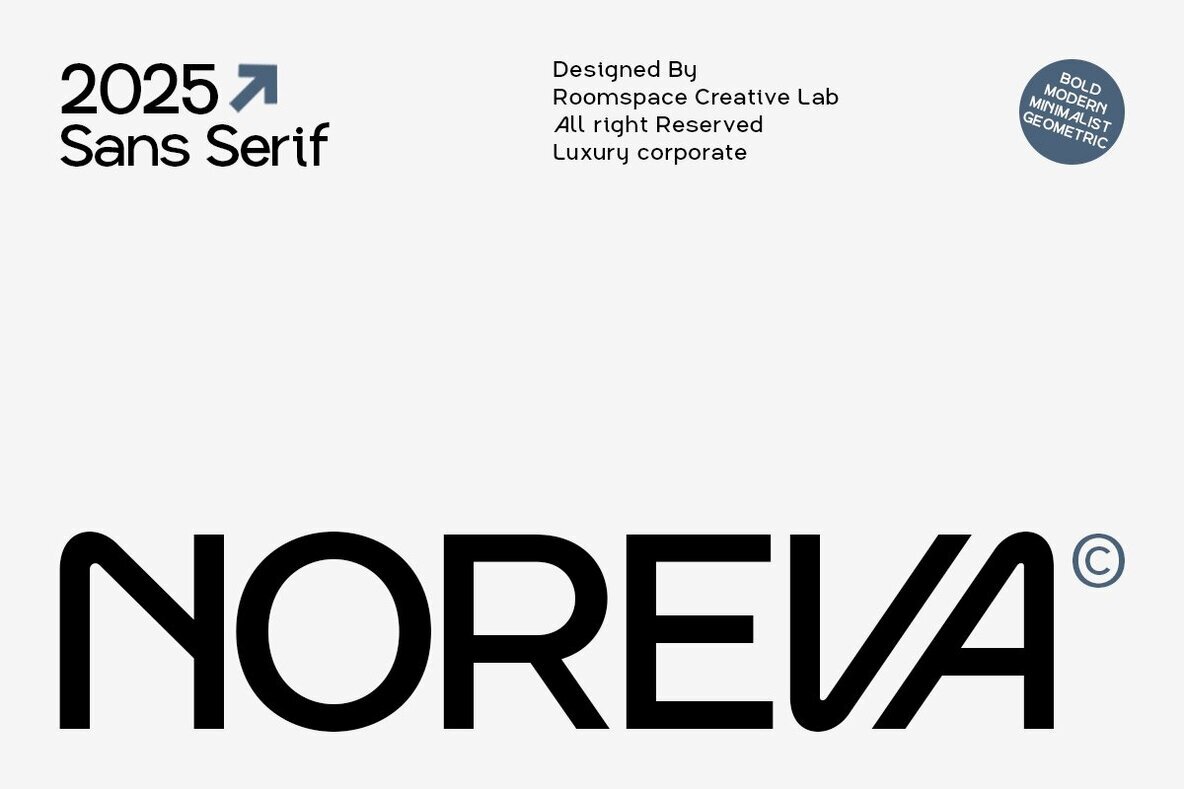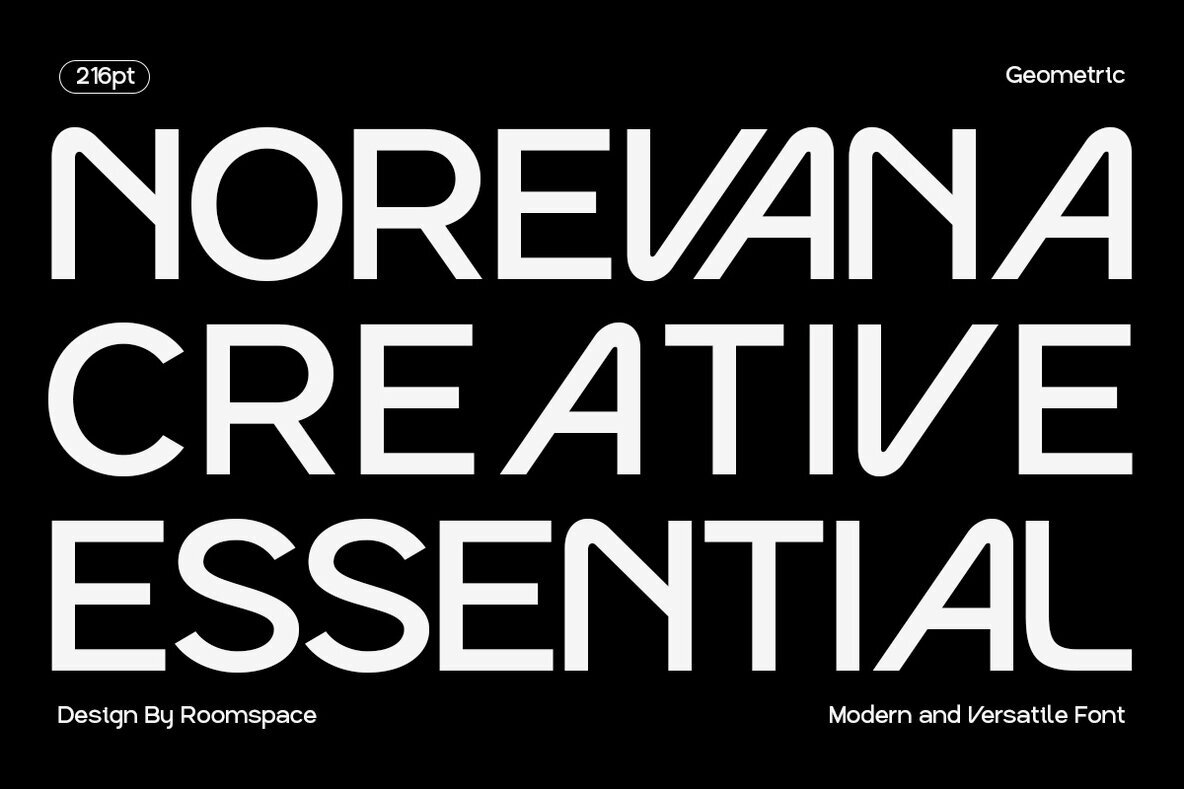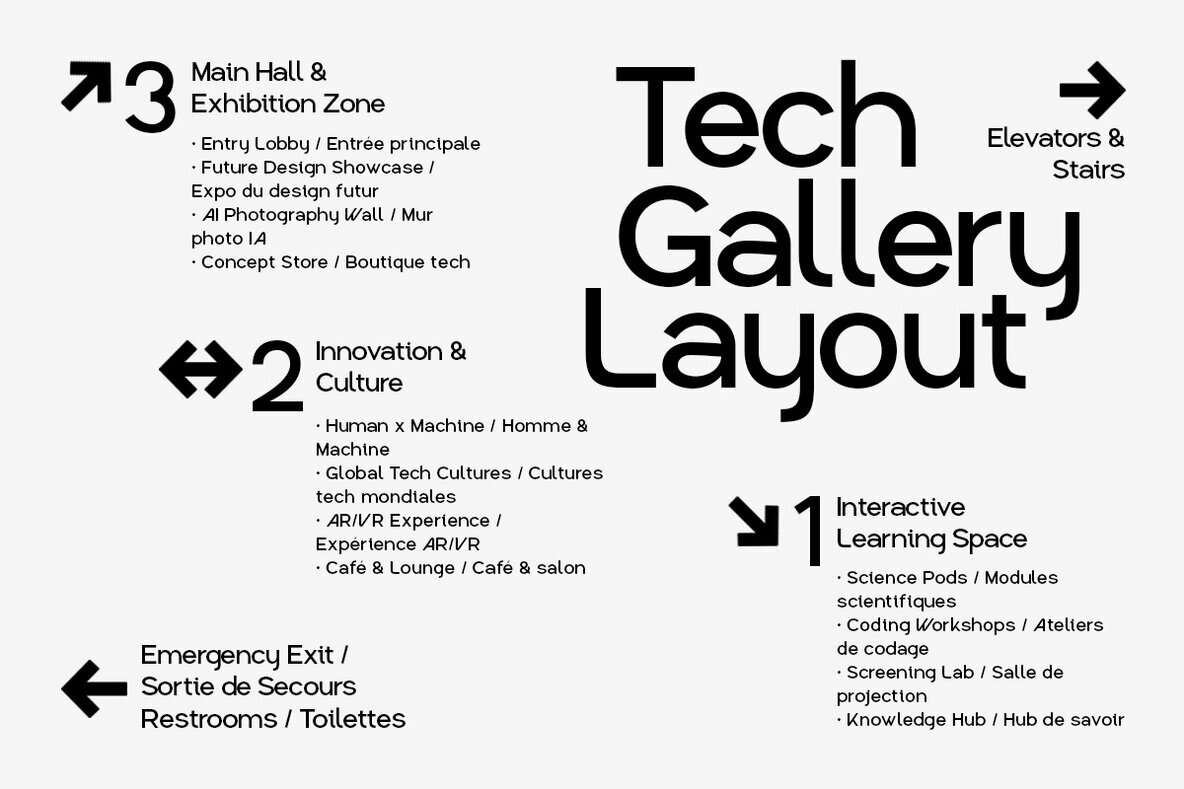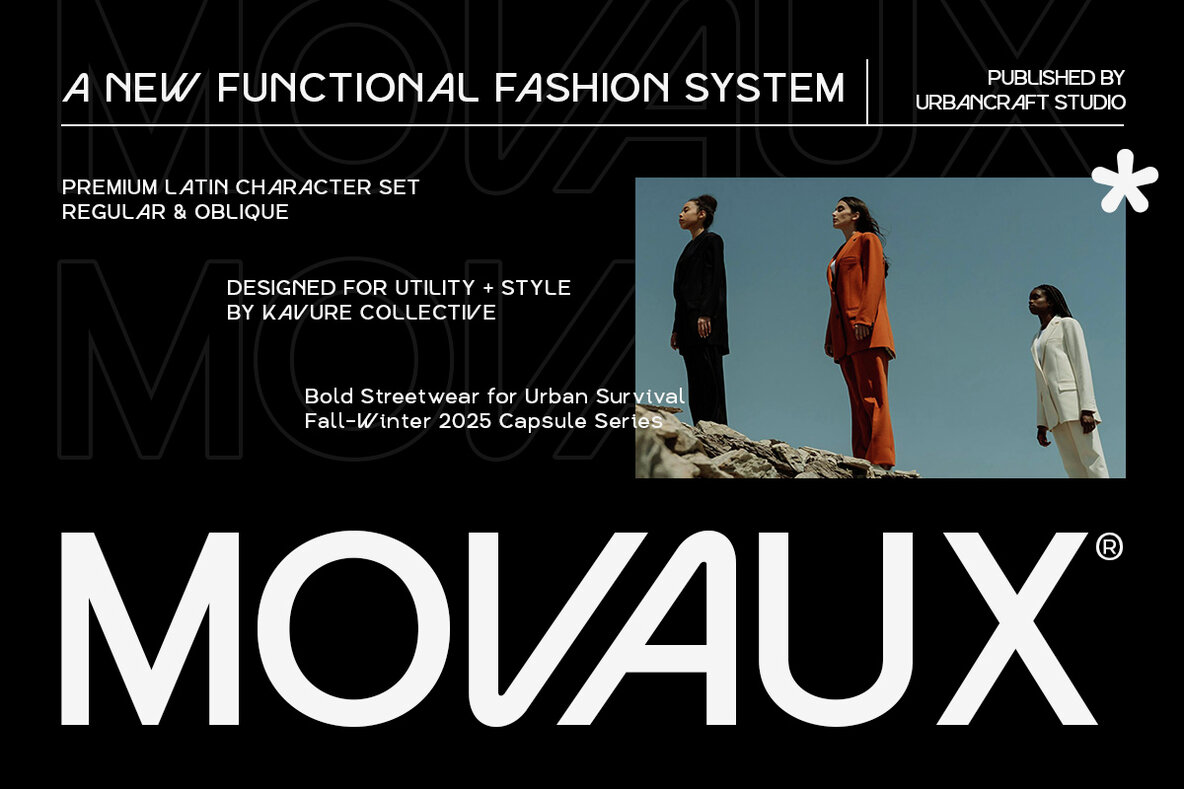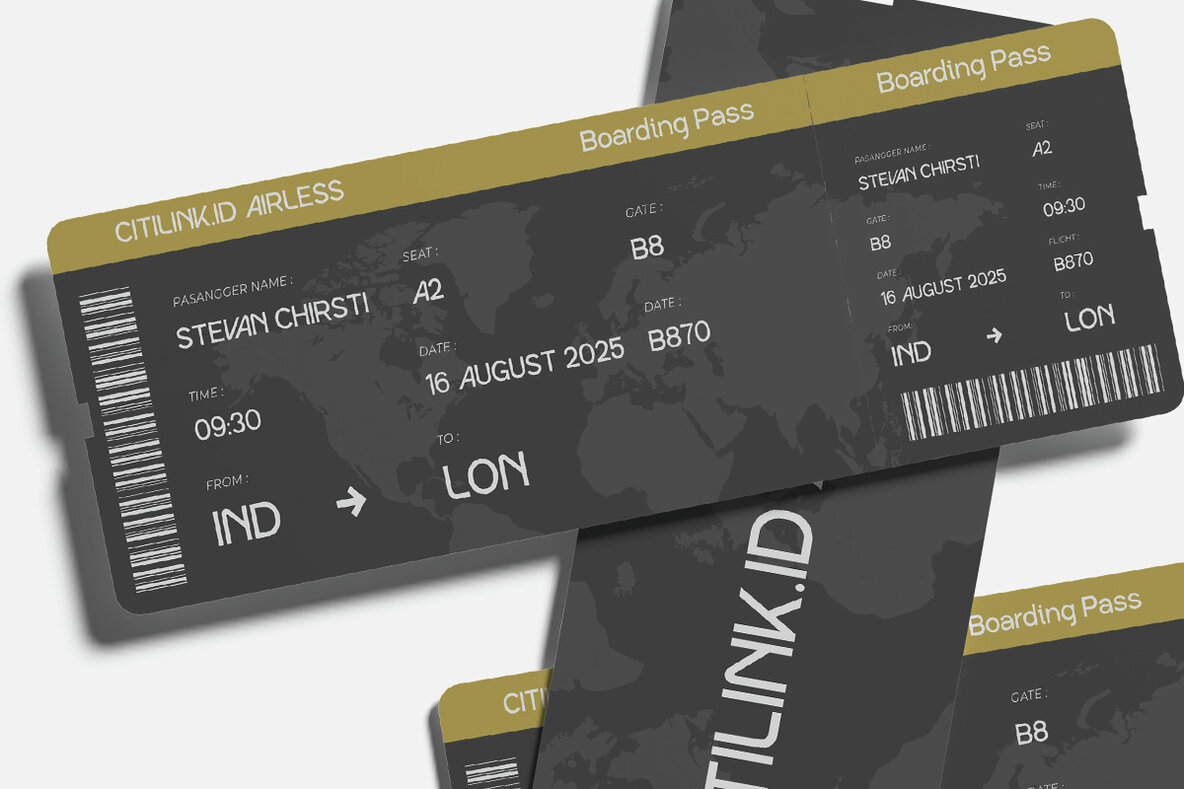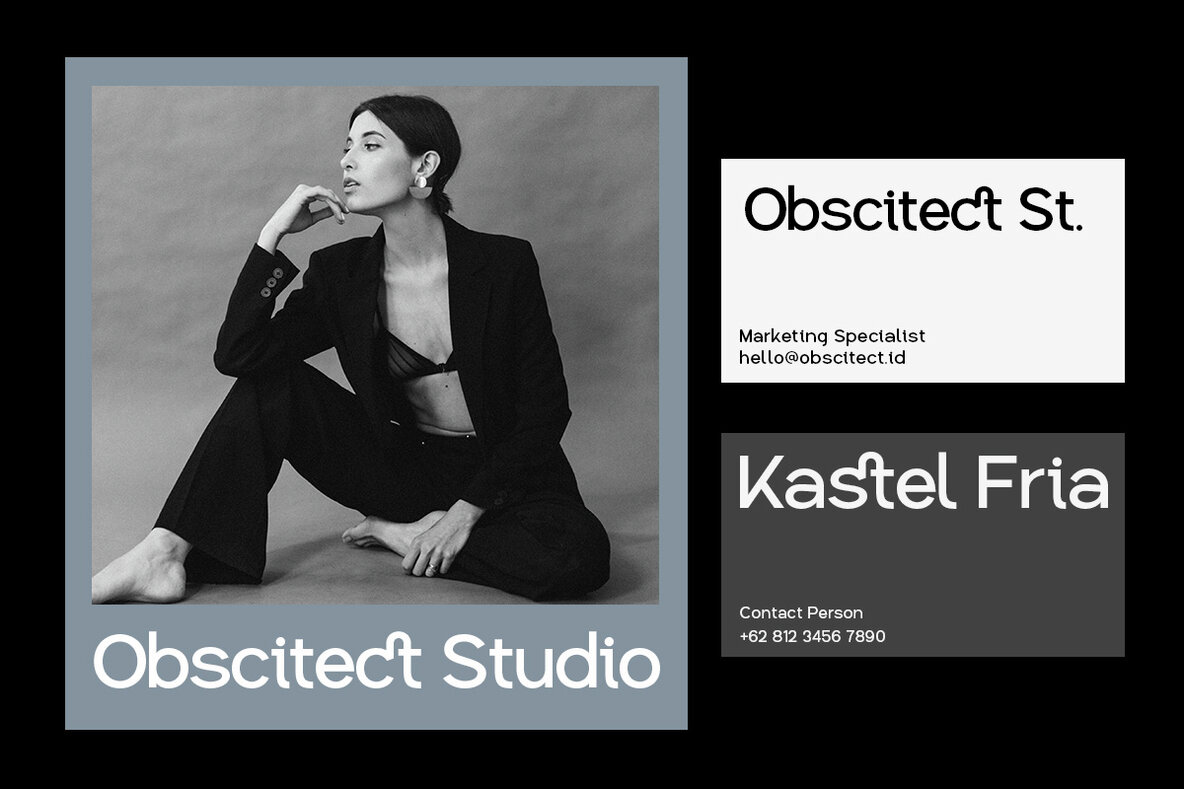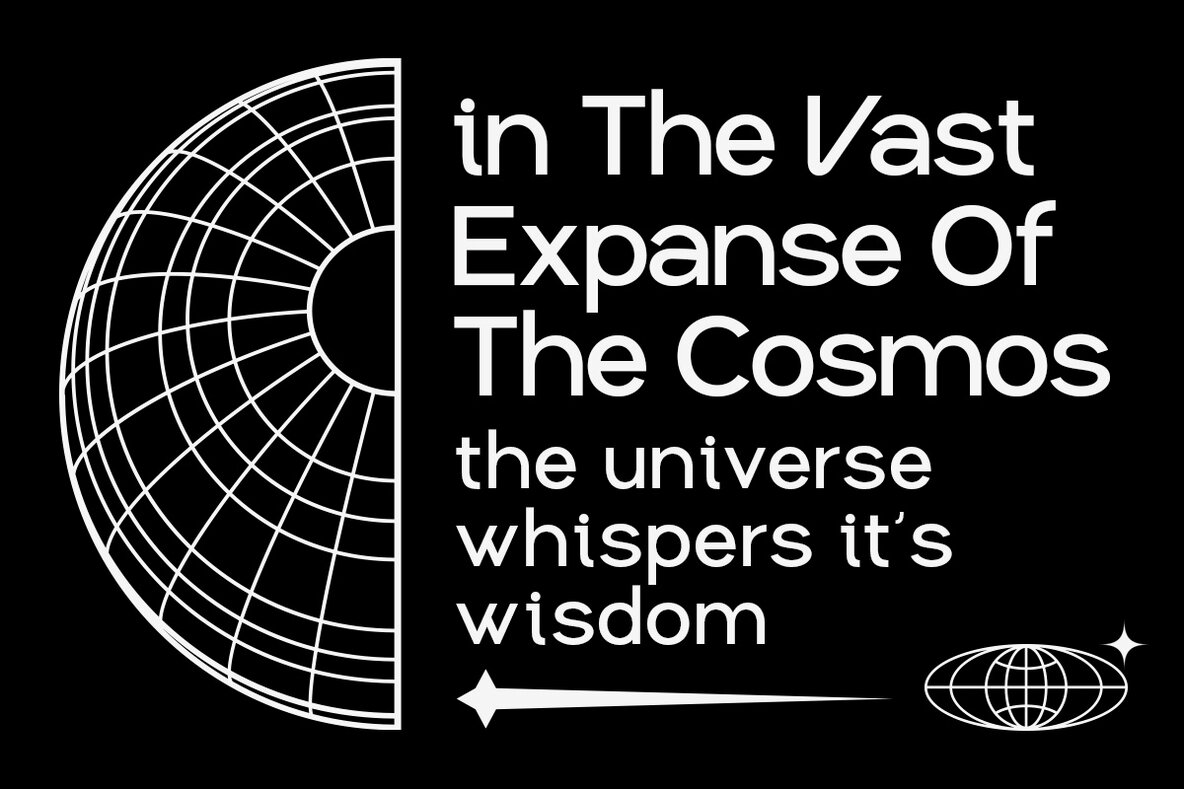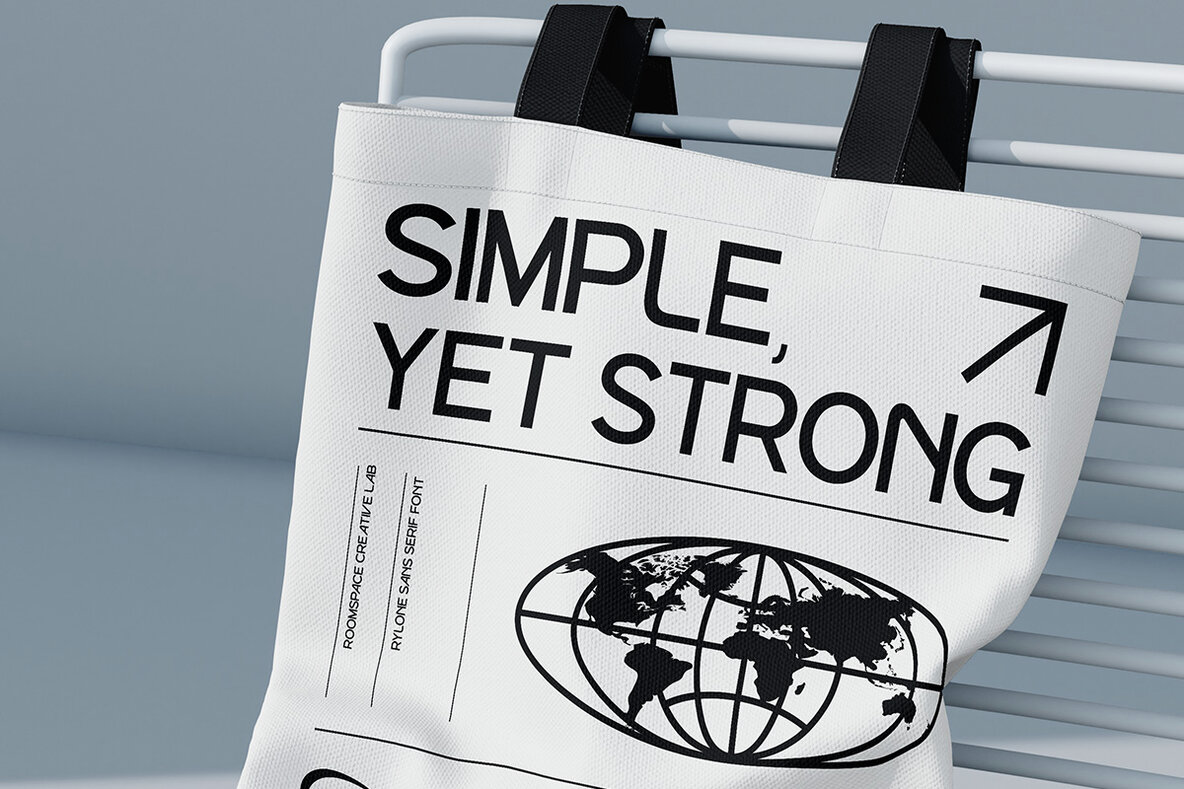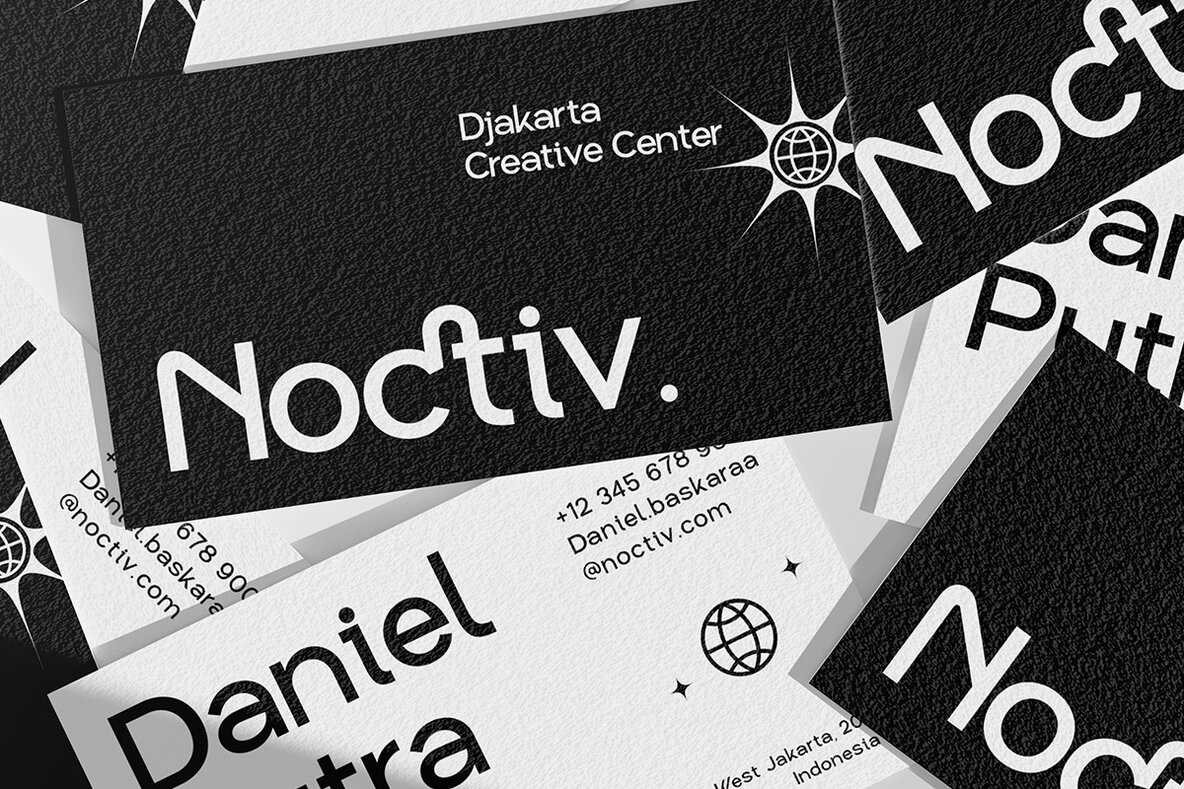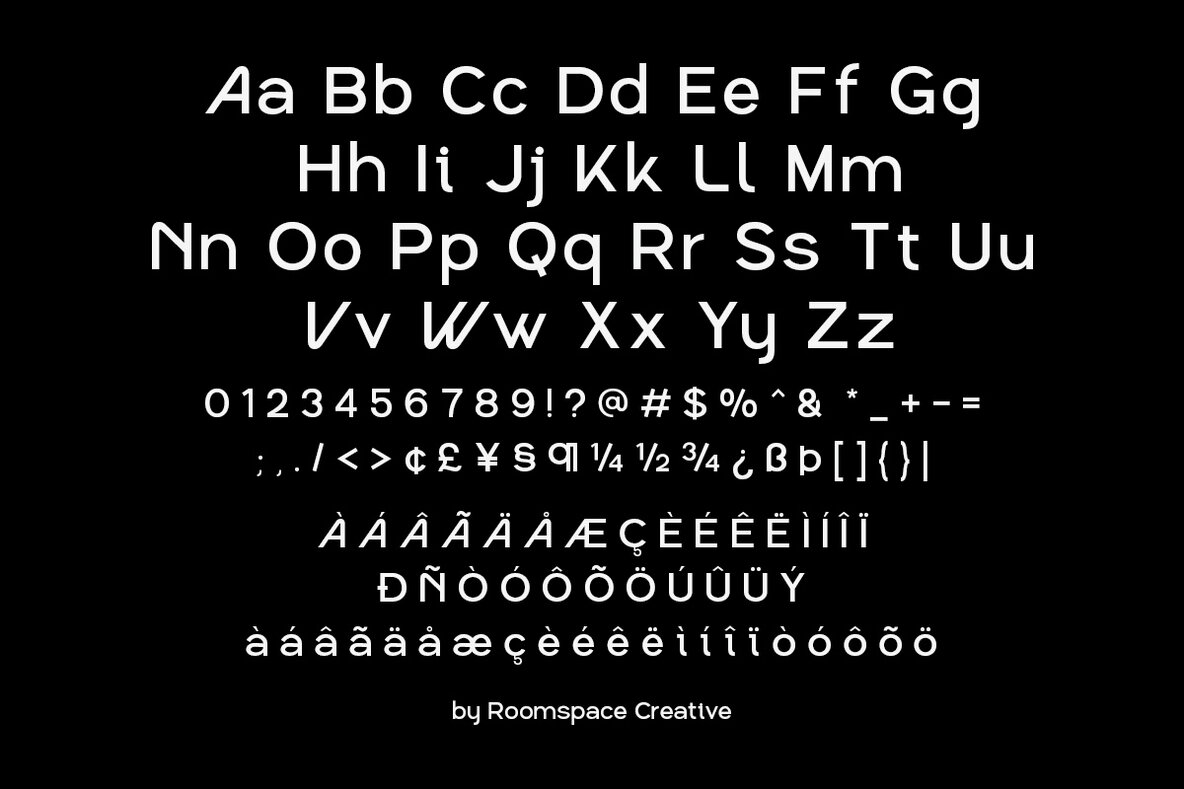
Noreva Font
Noreva Regular
Noreva Oblique
Noreva — a clean, confident sans serif font built for everyday design. With bold curves and a smart geometric look, it brings clarity and modern appeal to everything from branding to packaging Whether you're designing a tech startup logo, curating Instagram content, or building a minimalist website, Noreva works like a charm. It’s simple, flexible, and just the right amount of bold. Easy to use. Always looks sharp. Try it for: Support: